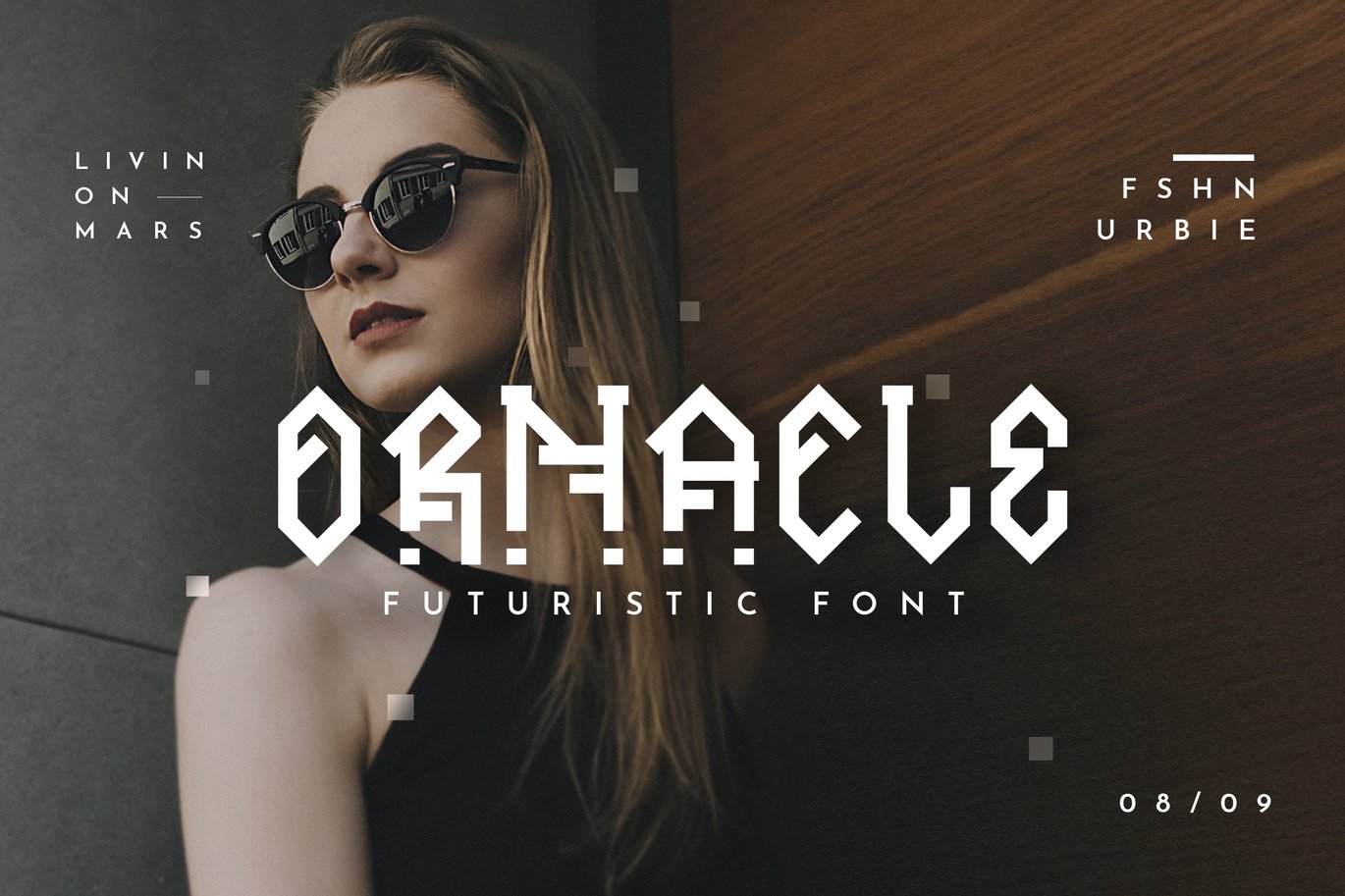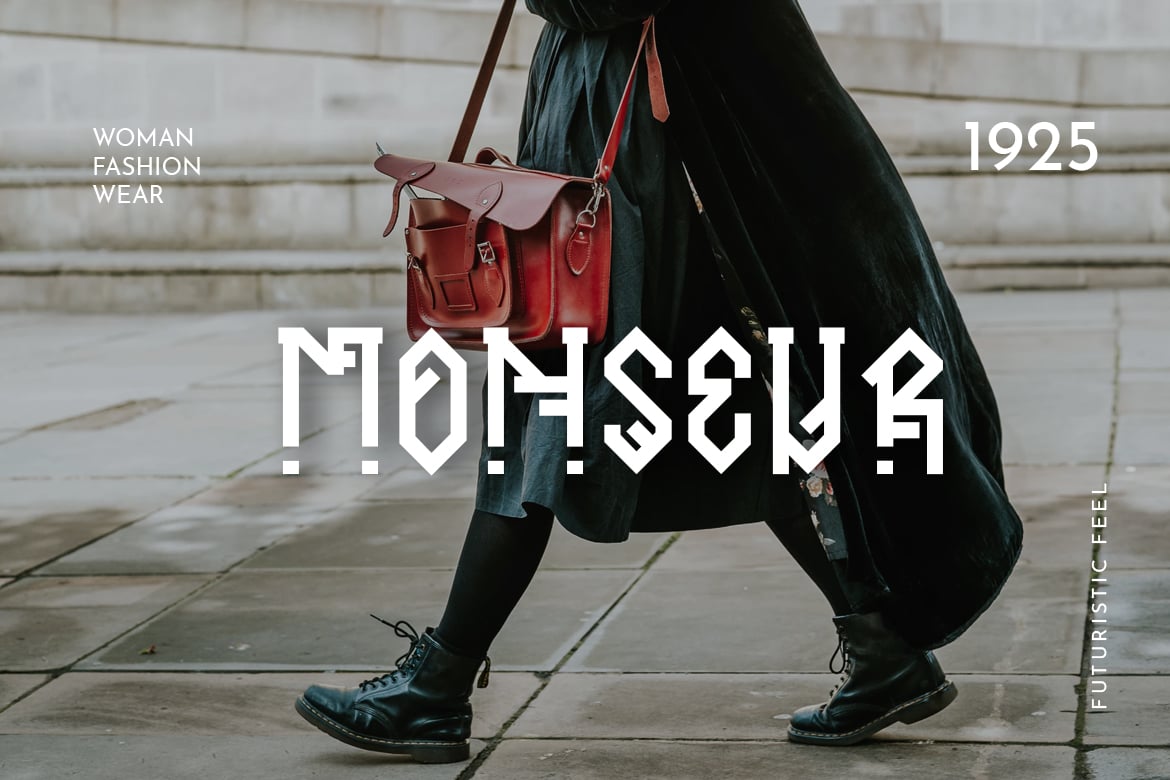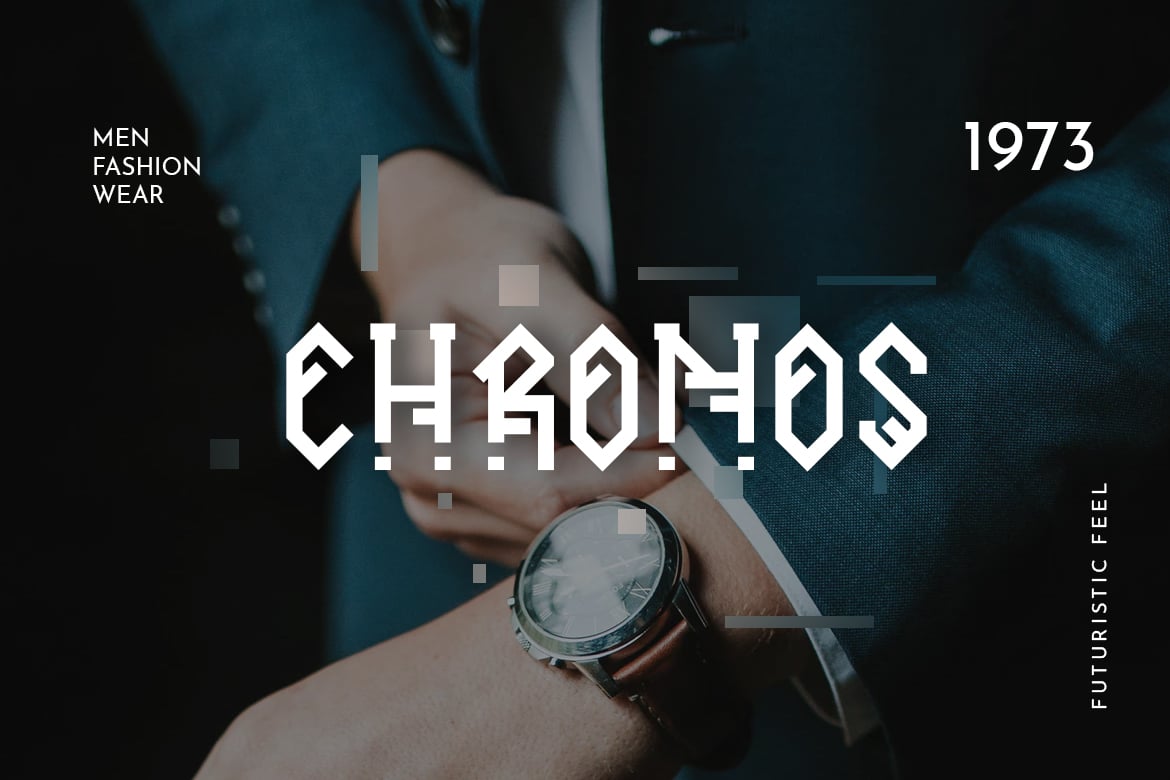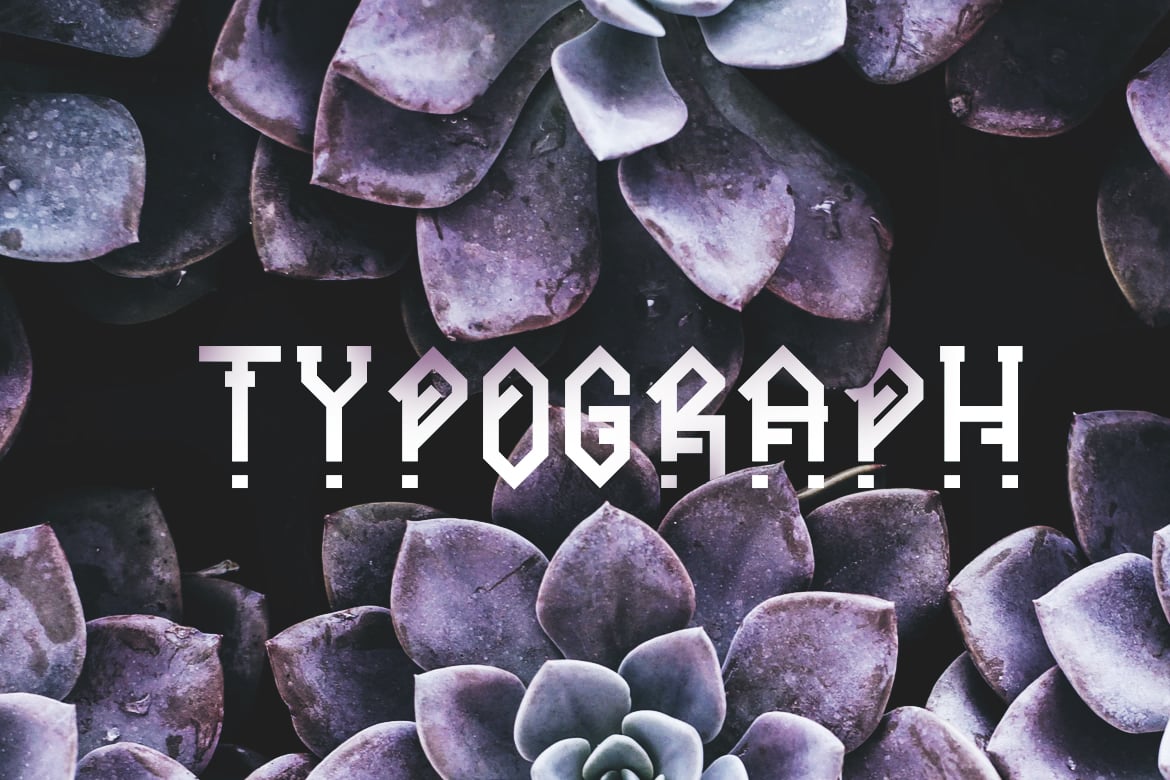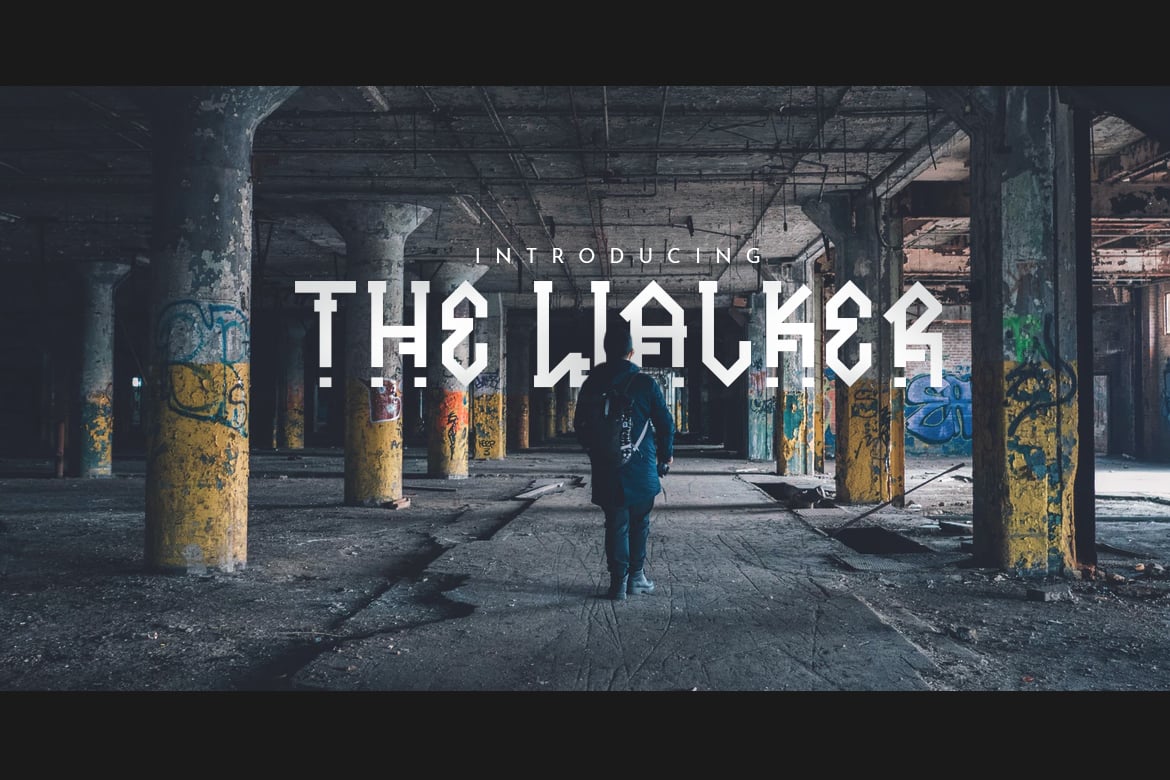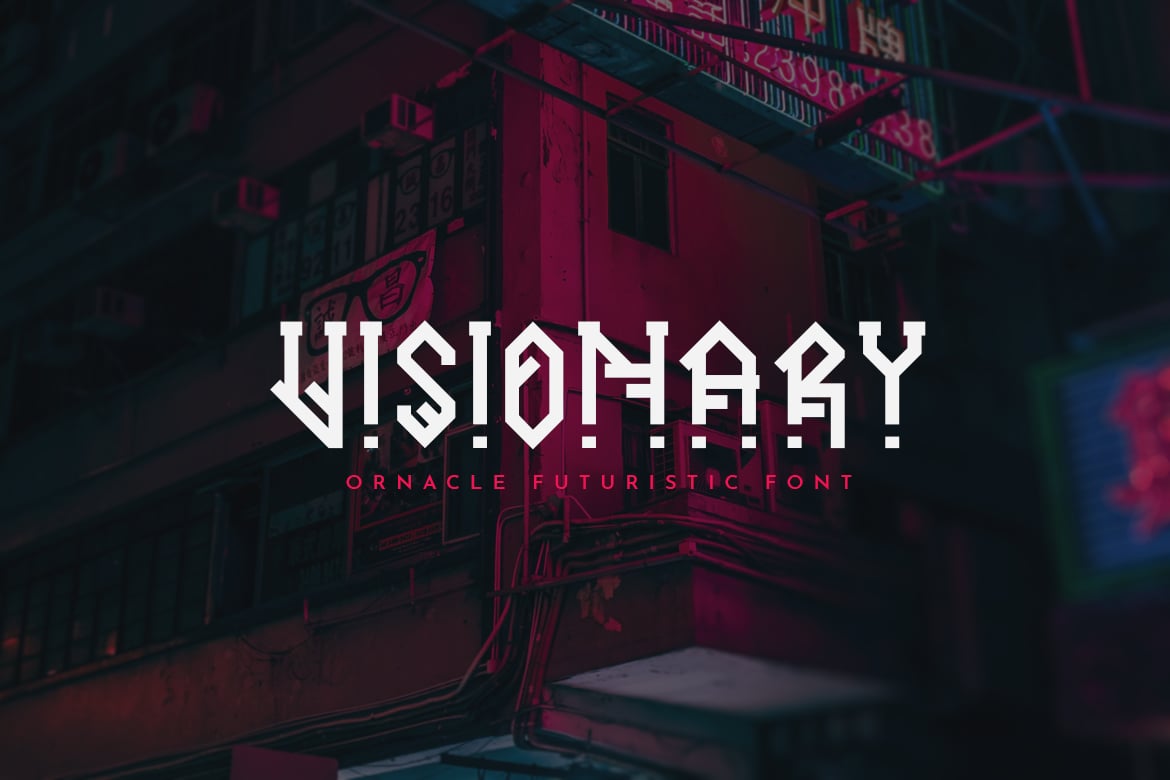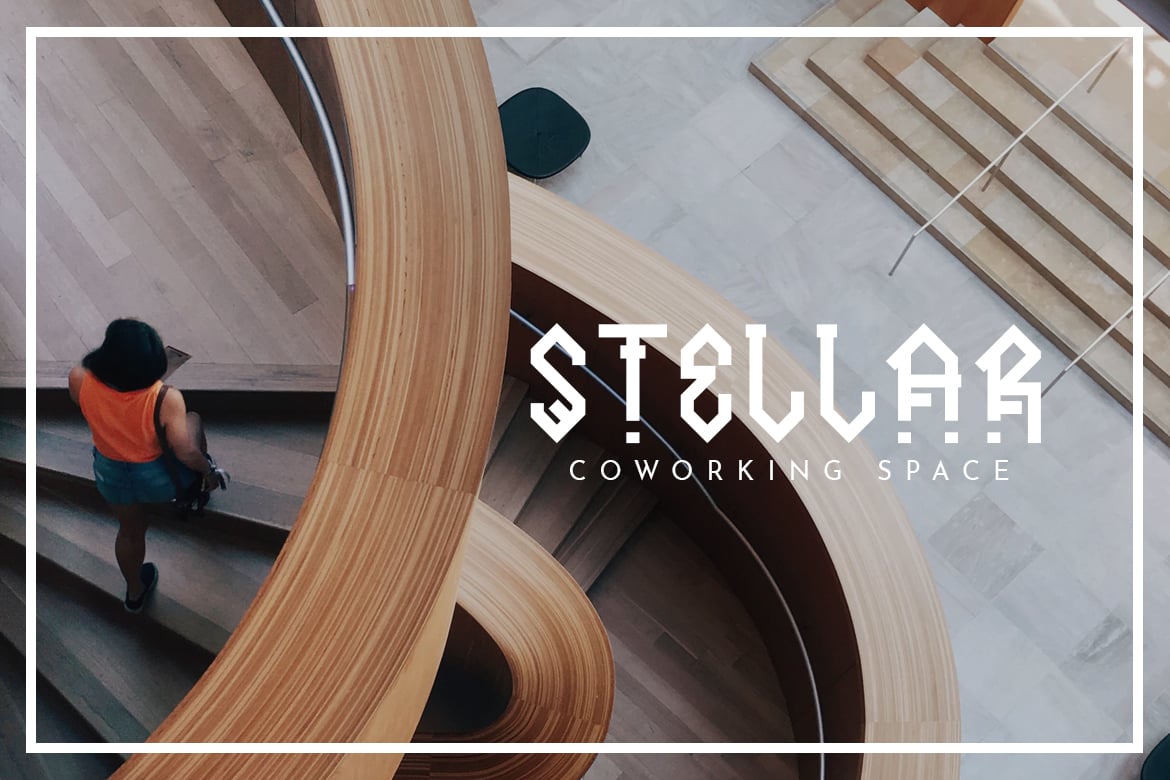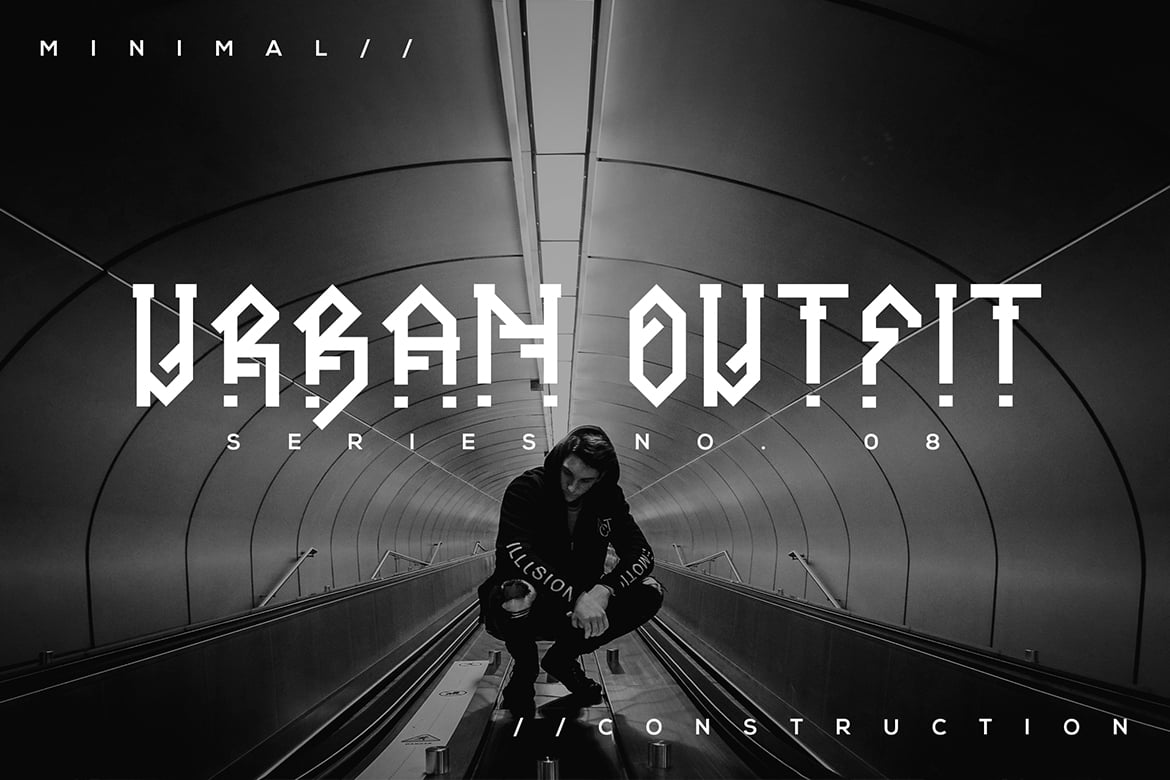
Ornacle – Futuristic Font
We Provide You one of the best Hand Written Script. Best match for logos, header, Titles, Prints & other Creative process possibilities.
Create a Extraordinary Typography / lettering results by using Ornacle – Futuristic Font